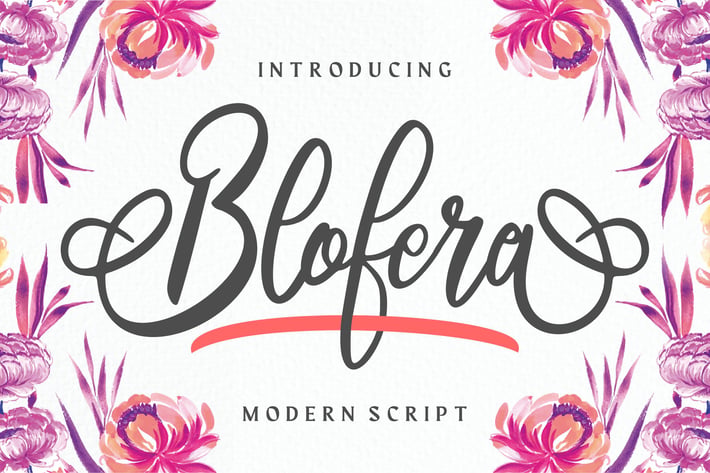
Blofera | Modern Script Font
Blofera | Modern Script Font with a calligraphy style, So beautiful on invitation like greeting cards, branding materials, business cards, quotes, posters, and more!